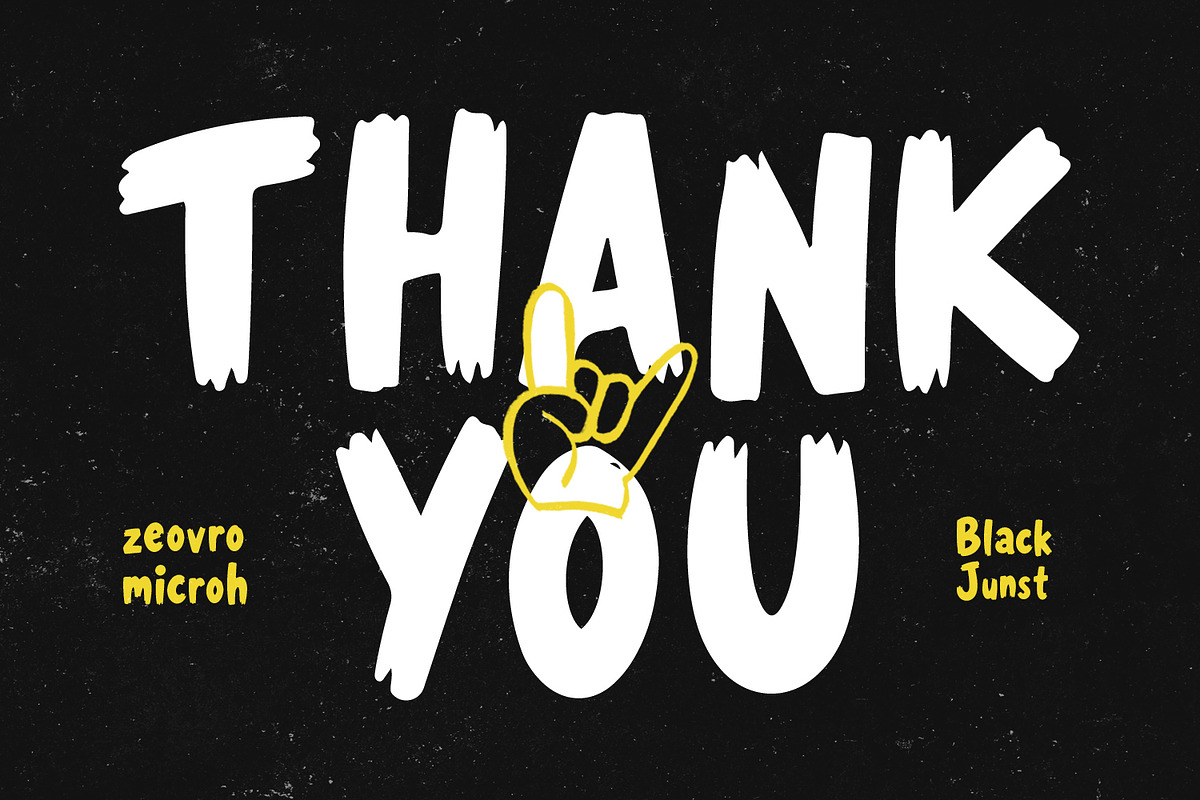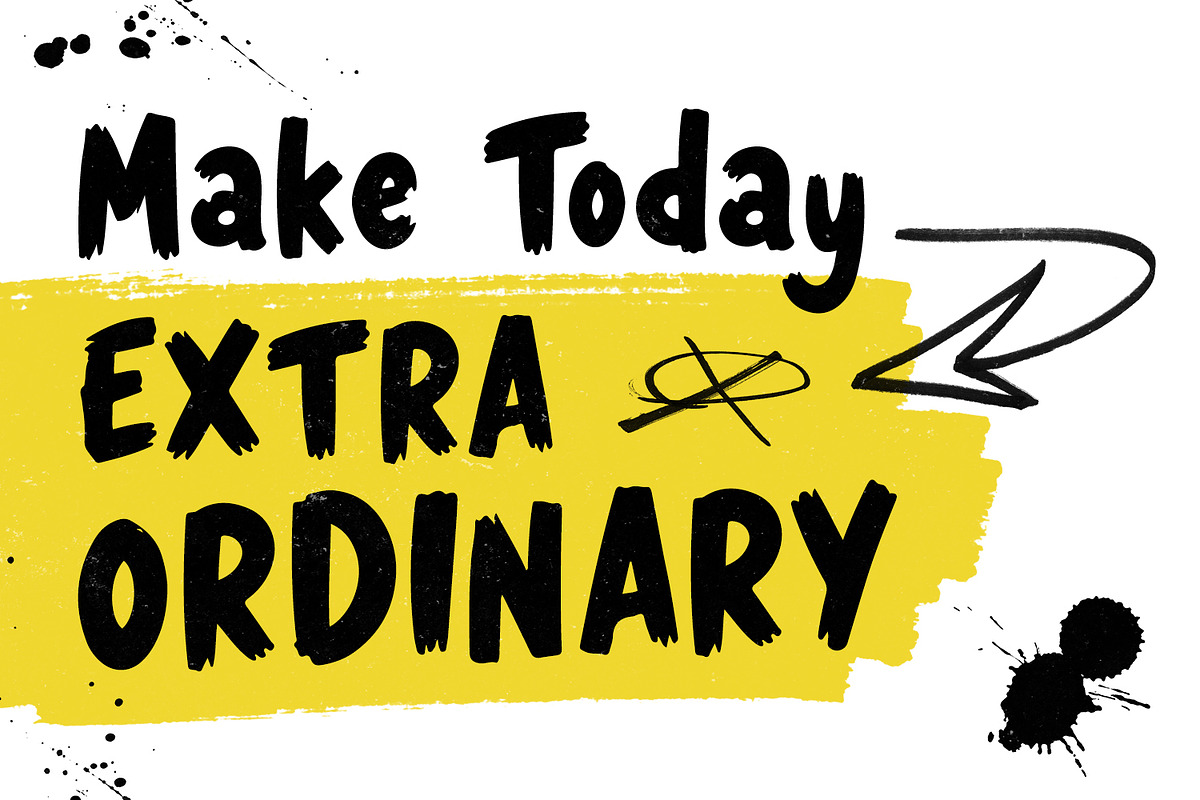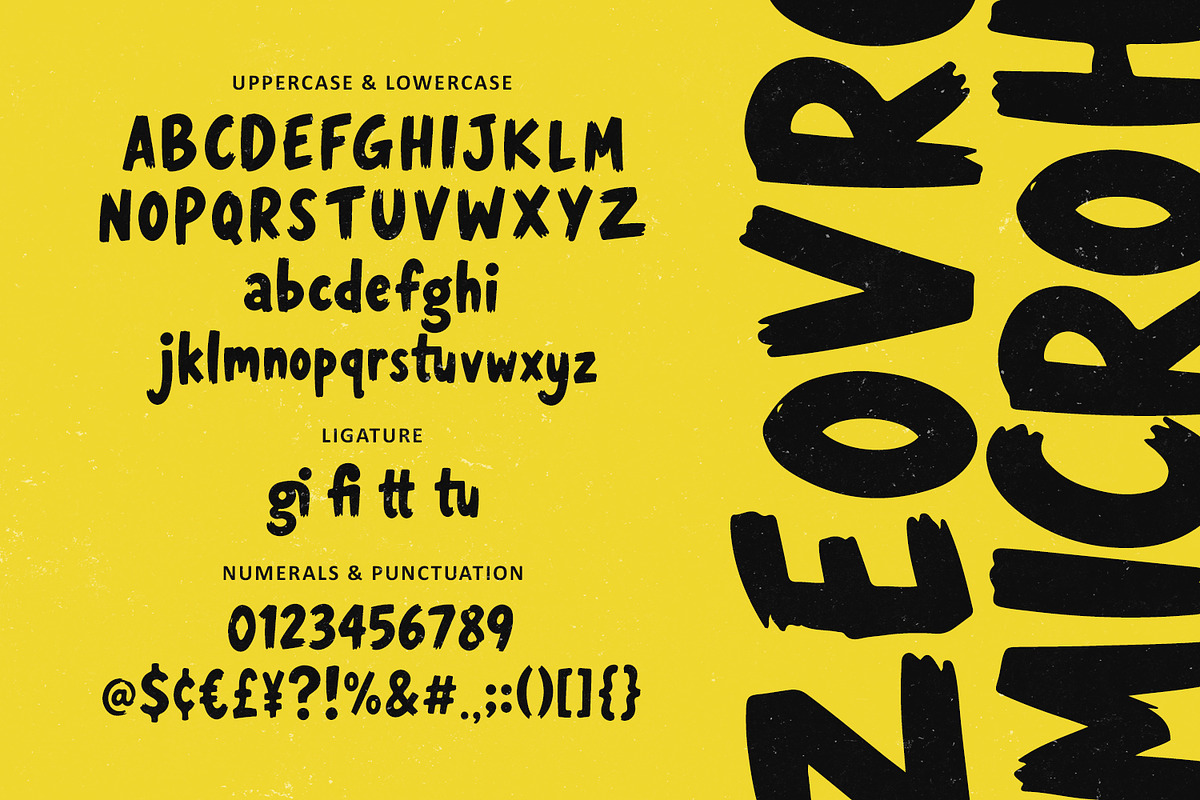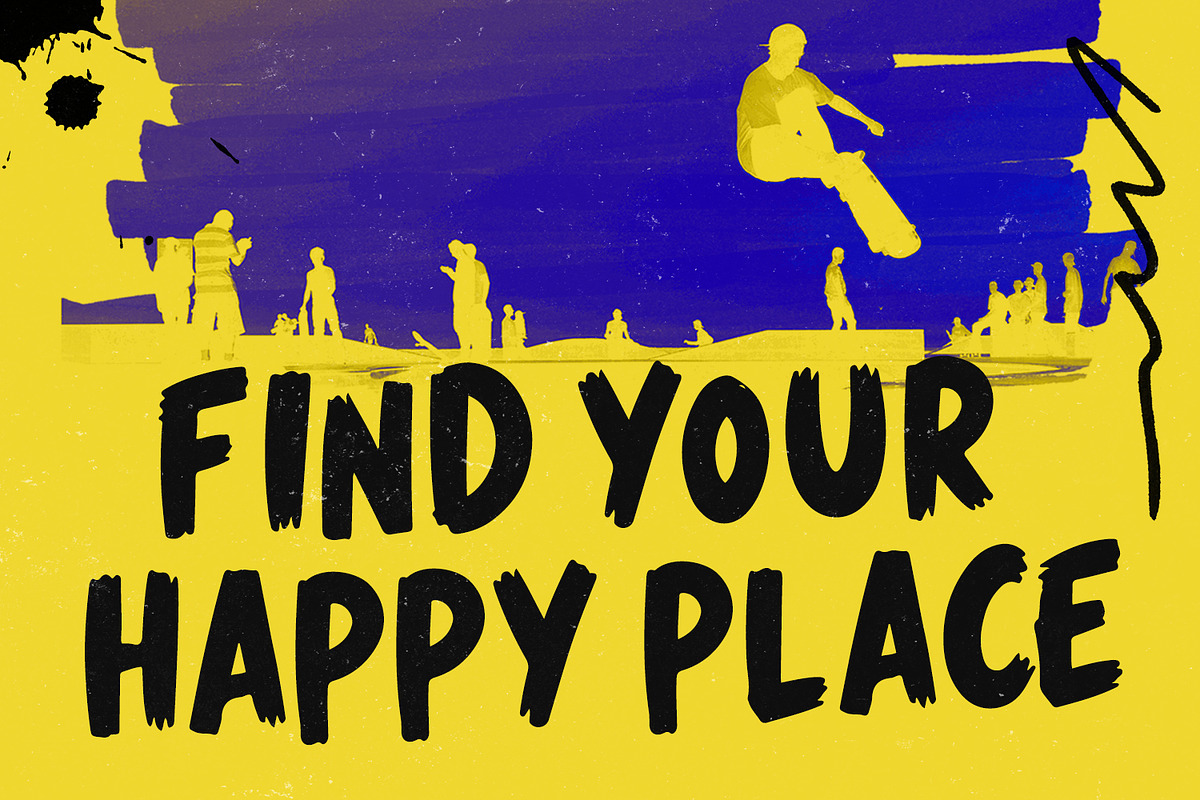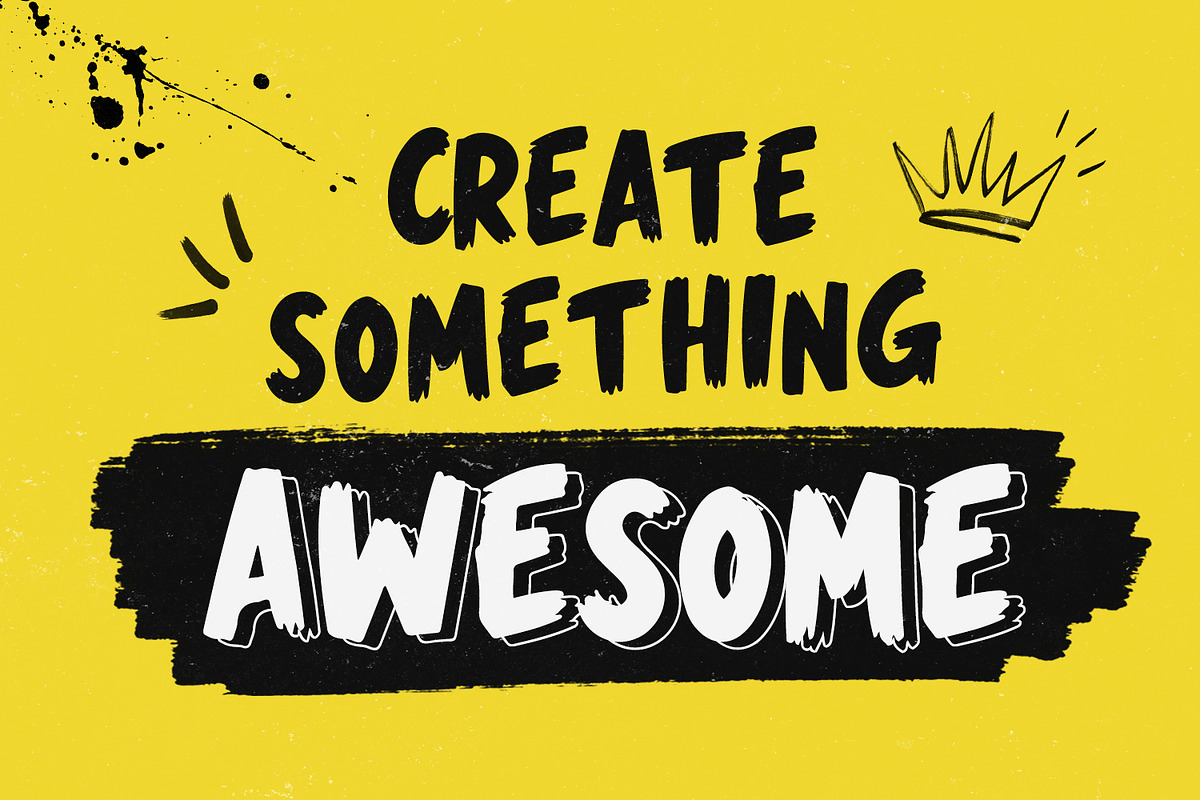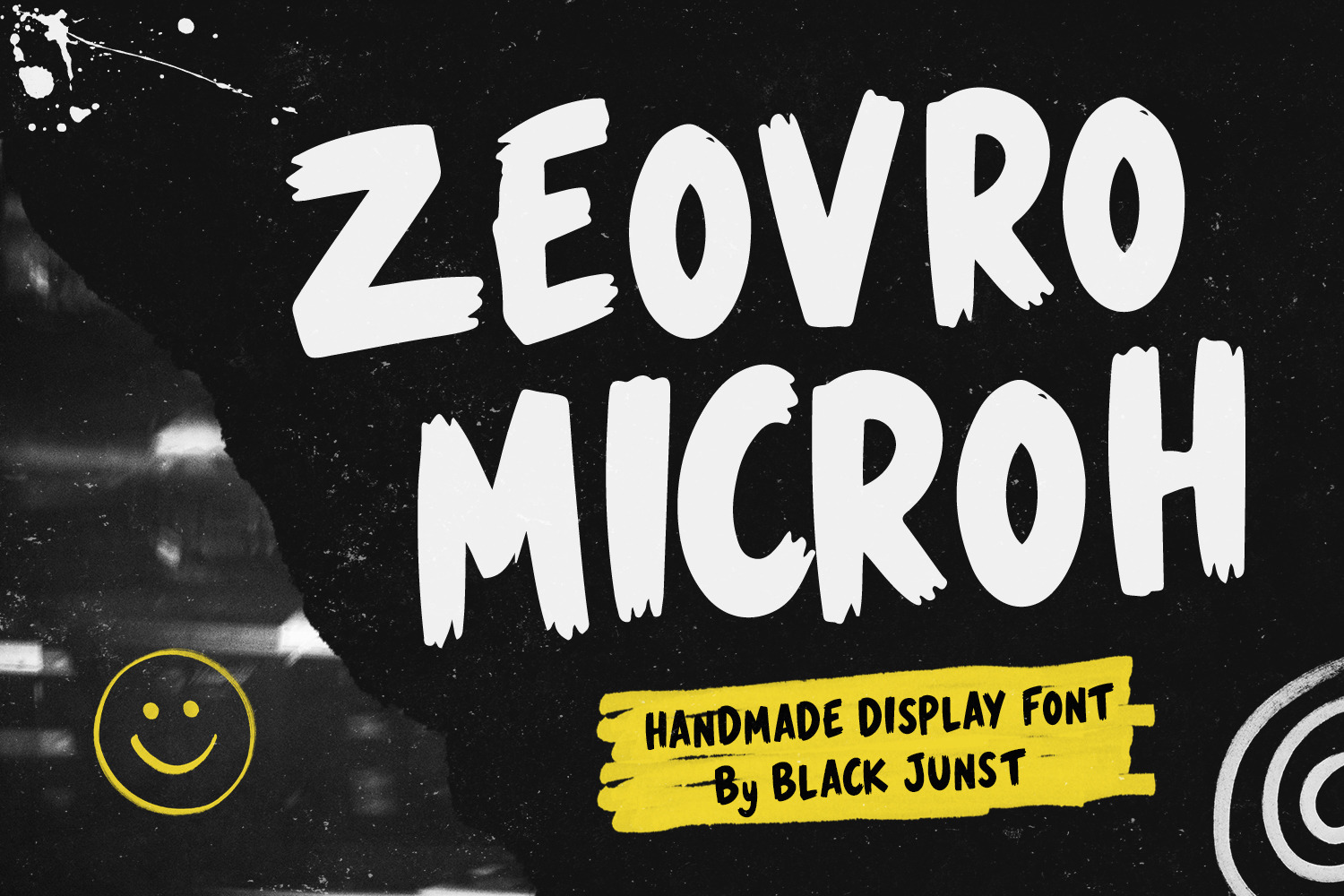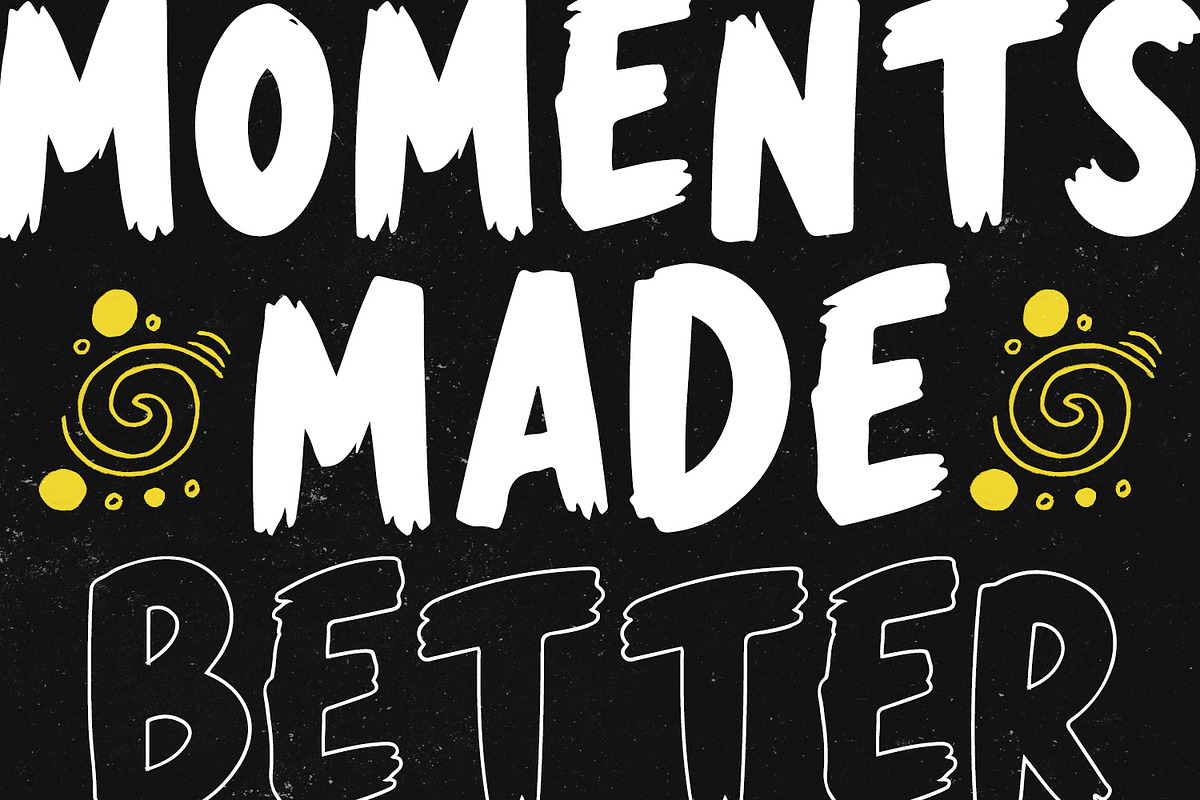
Zeovro Microh - Display Font
Zeovro Microh is a bold handmade display font inspired by expressive brush strokes, street art, and handcrafted lettering. Designed with rough organic edges and a natural painted texture, this font instantly creates a strong visual impact while maintaining excellent readability.
Created for designers who need an authentic handcrafted look, Zeovro Microh is perfect for branding, logos, posters, packaging, apparel, social media graphics, YouTube thumbnails, album covers, children's products, food branding, cafés, beverage labels, quotes, invitations, merchandise, and modern advertising.
The family includes 3 versatile styles—Regular, Italic, and Outline—making it easy to combine different looks within one project. Use the Regular style for bold headlines, Italic for energetic movement, and Outline for layered typography or eye-catching display compositions.
Whether you're creating a fun brand identity or a bold marketing campaign, Zeovro Microh delivers a unique handmade personality that stands out across both print and digital media.
Bring an authentic handcrafted energy into your next creative project with Zeovro Microh, a display font built to make every headline unforgettable.